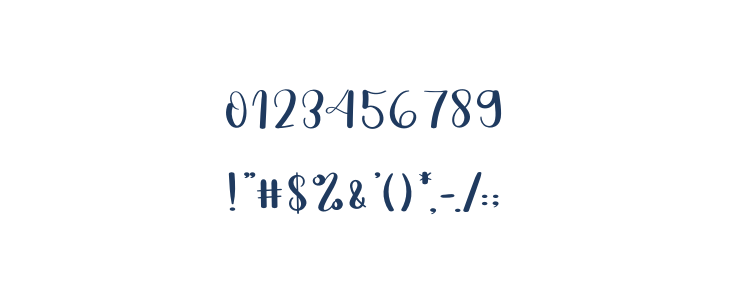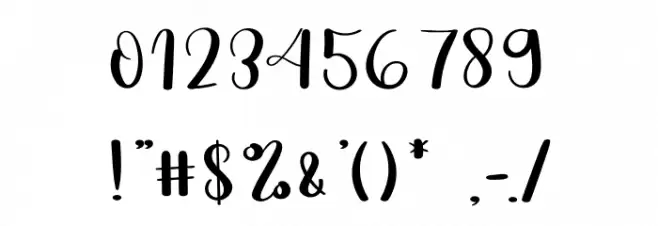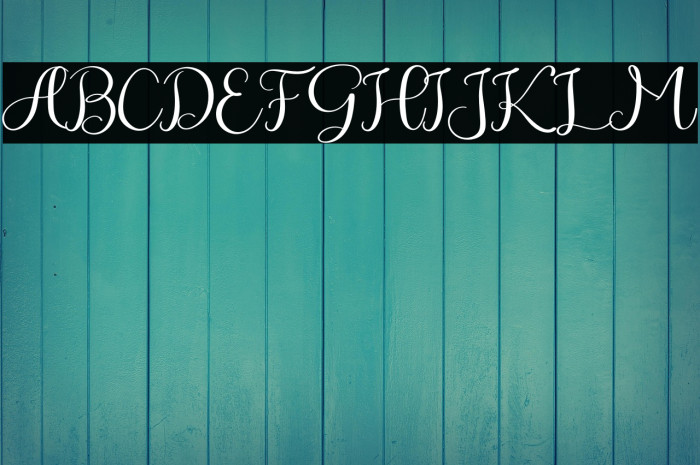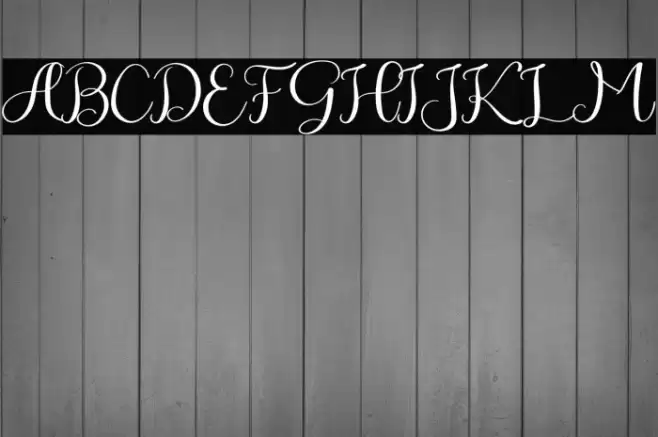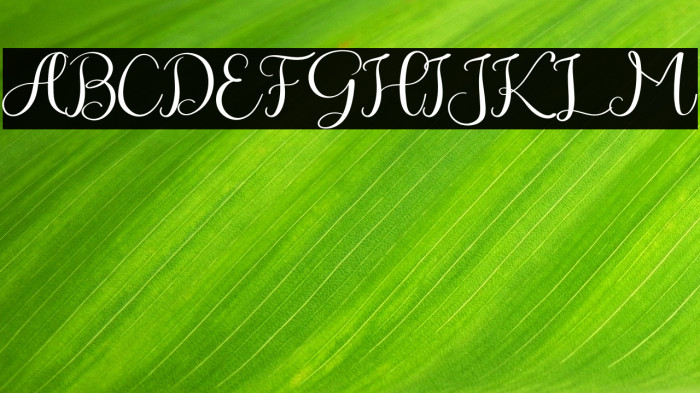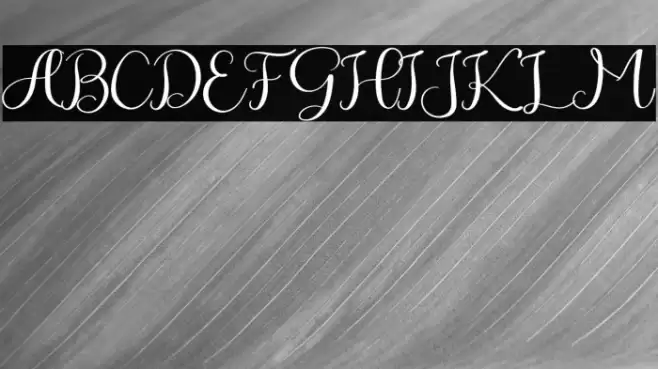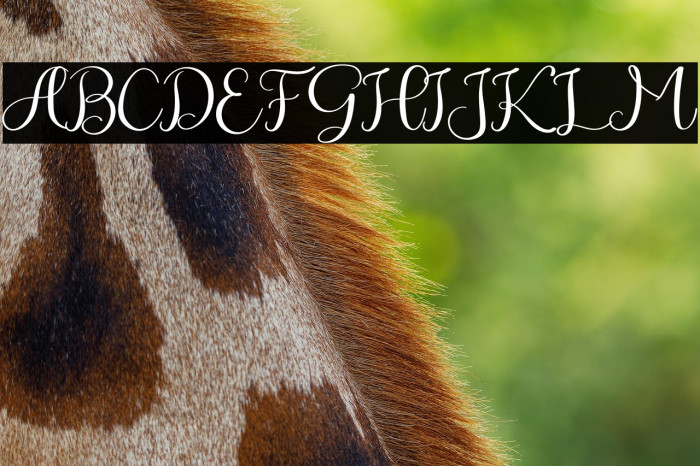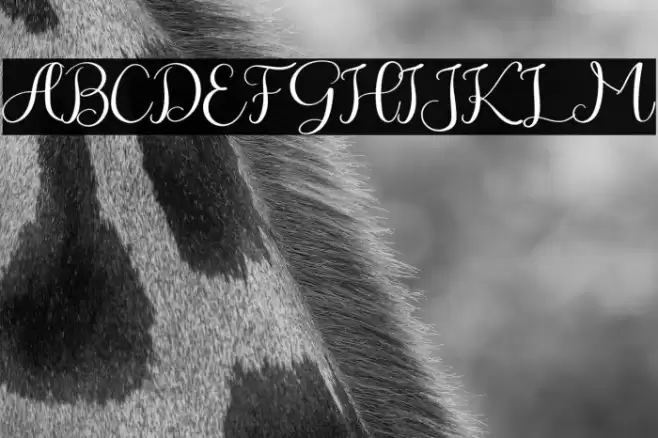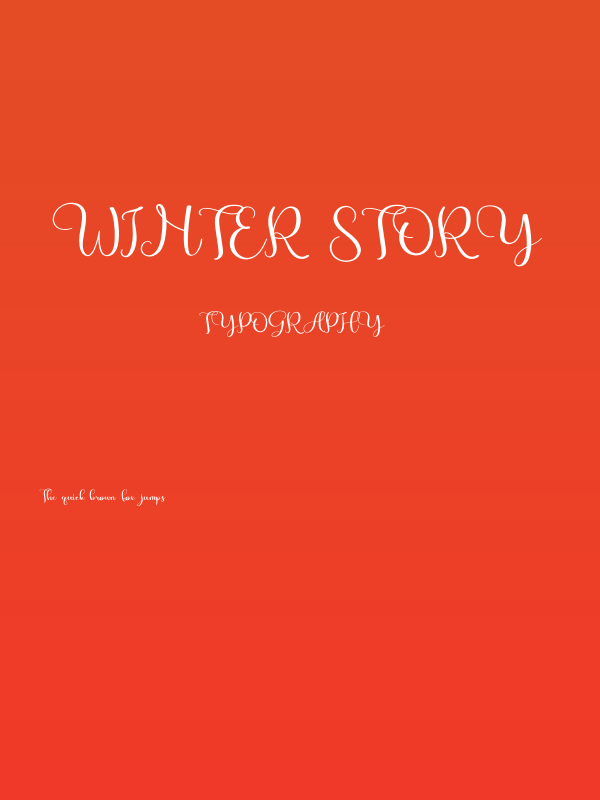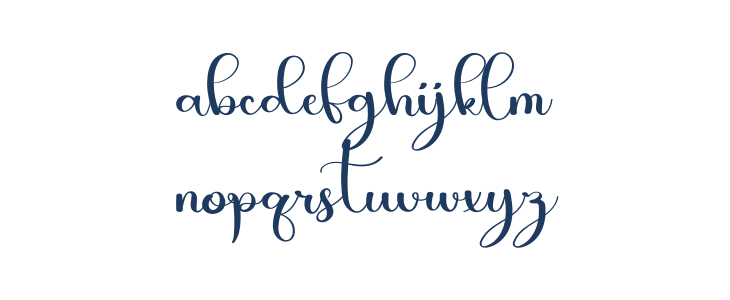
Winter Story Font
Winter Story Description
This font features a charming and elegant script style with a flowing, cursive design. The uppercase letters are gracefully connected, showcasing a sophisticated flair that is both stylish and inviting. The lowercase letters maintain a consistent flow, with some characters featuring delightful loops and swashes that add a touch of whimsy. The numerals are bold and clear, complementing the overall aesthetic with their rounded forms. Special characters are thoughtfully designed to match the script's elegance, making this font versatile for various creative projects. Its smooth curves and balanced proportions make it ideal for conveying a sense of warmth and personality.